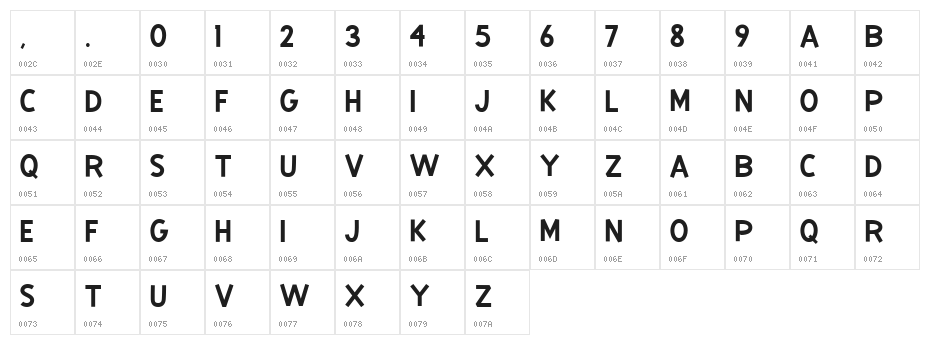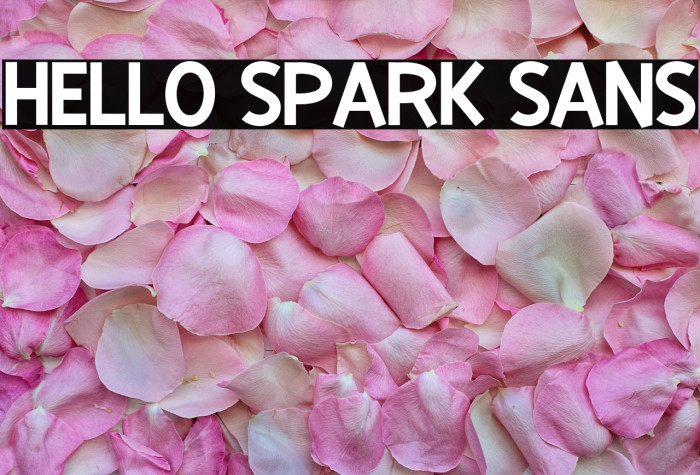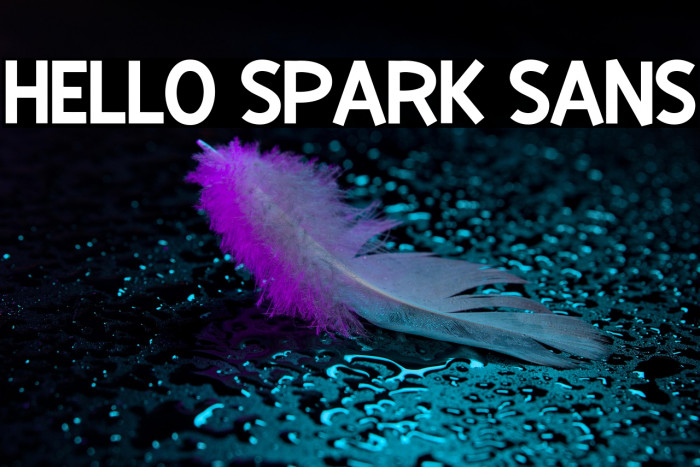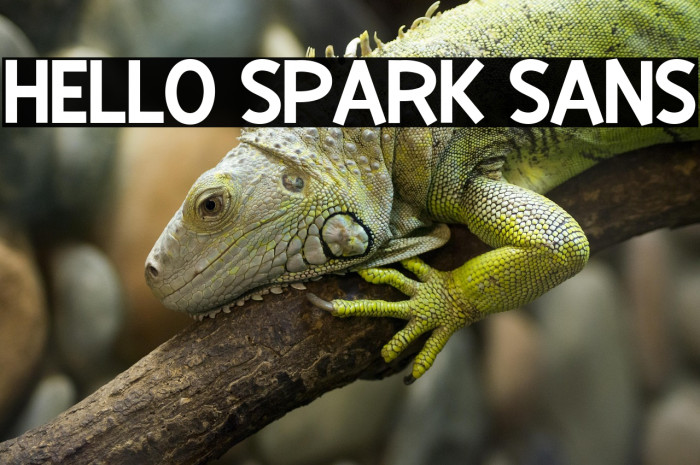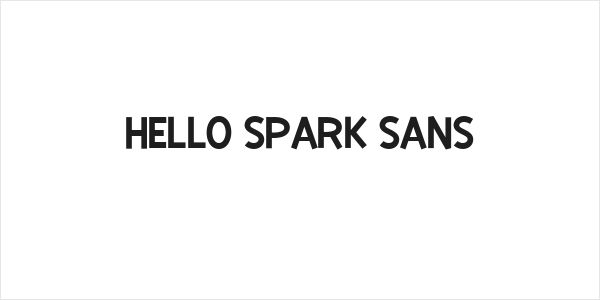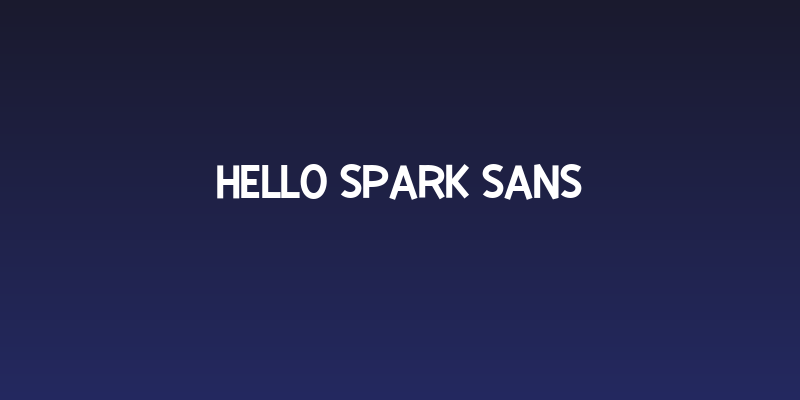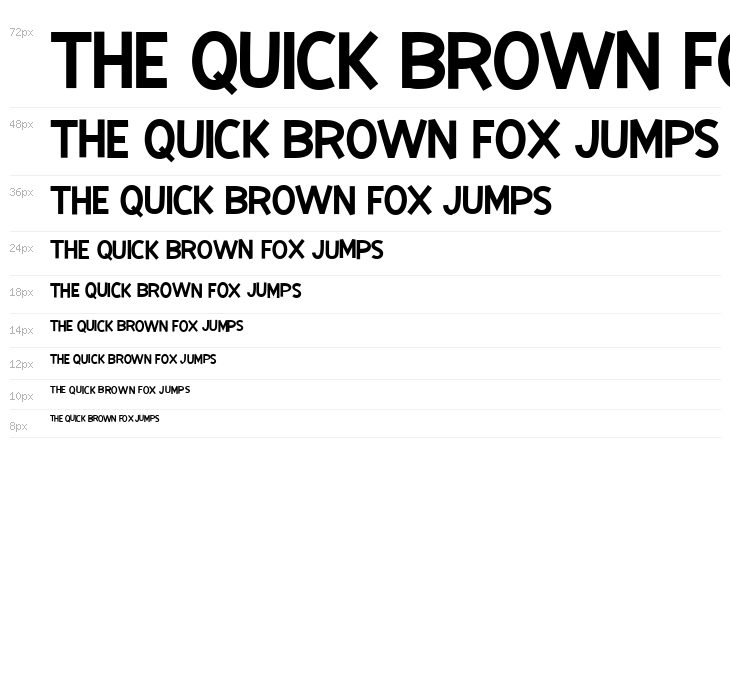
Hello Spark Sans Font
Hello Spark Sans Description
This font features a bold and modern sans-serif style with clean, straight lines and a uniform stroke width. The uppercase letters are prominent and well-defined, making them highly legible. The lowercase letters maintain a consistent style, complementing the uppercase set. The numerals are clear and easy to read, matching the overall aesthetic of the font. The spacing between characters is balanced, ensuring readability without appearing cramped. This font is versatile, suitable for various design projects that require a contemporary and professional look.
| Proposed Projects | Ideal for branding, advertising, headlines, and digital media where a strong, modern presence is desired. |